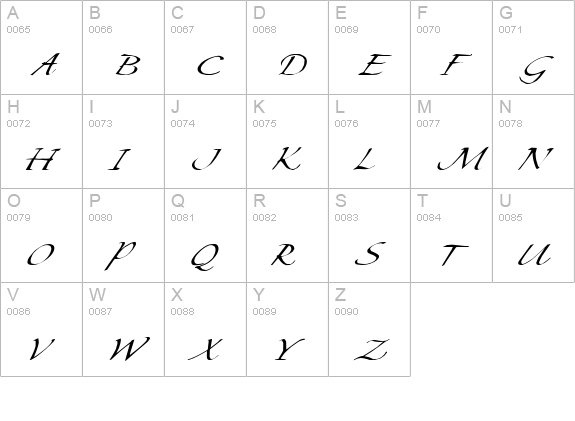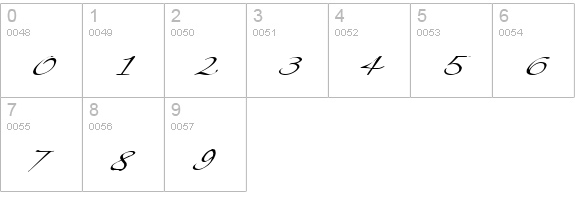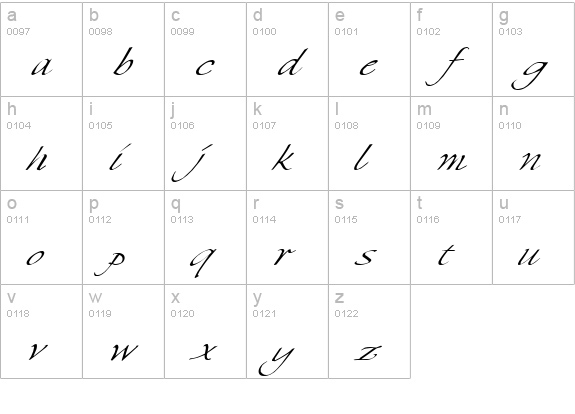
MikadoItalic Font Details
MikadoItalic is a stunning and elegant font that exudes sophistication and charm. With its delicate and graceful curves, this font is perfect for adding a touch of refinement to any design project. The italic style of MikadoItalic lends a sense of fluidity and movement, making it ideal for conveying a sense of grace and elegance. What sets MikadoItalic apart is not only its beauty but also its accessibility. This exquisite font is available for free download at FontsMarket.com, making it easy for designers and creatives to incorporate its timeless appeal into their work. With MikadoItalic, you can effortlessly elevate your designs and create a lasting impression.